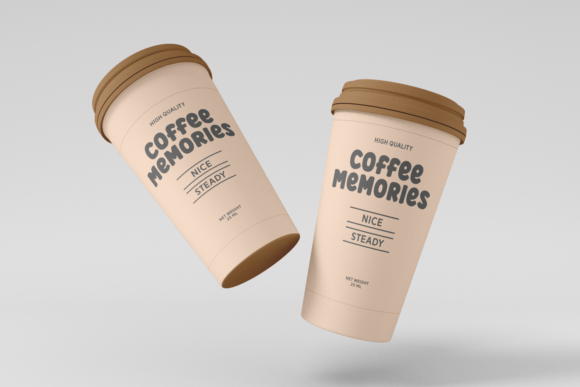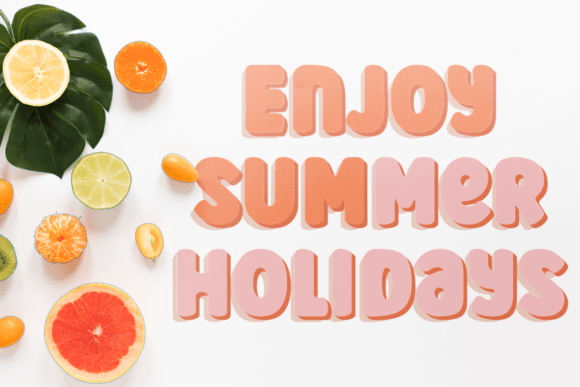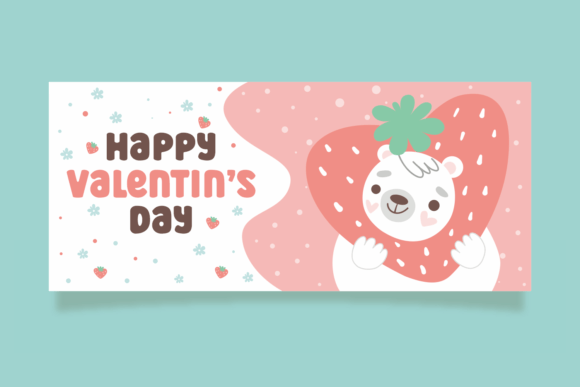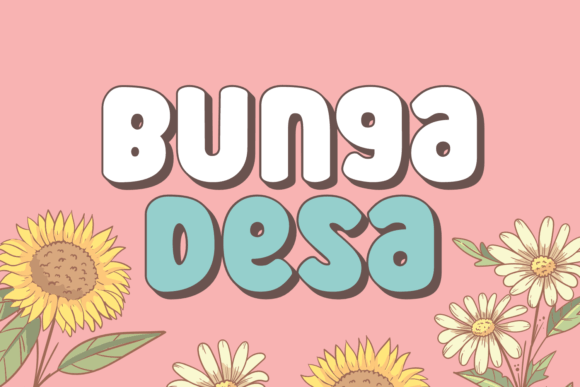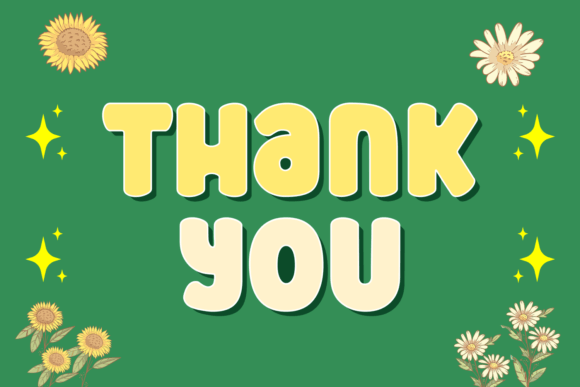
Introduction to Dorps Bloem Font
Dorps Bloem is a whimsical and eye-catching display typeface.
The charactersโ bold strokes give this typeface a unique playfulness that will definitely improve any design concept Use it to create covers, posters, headlines, logos, fabric printing, and a variety of other things.